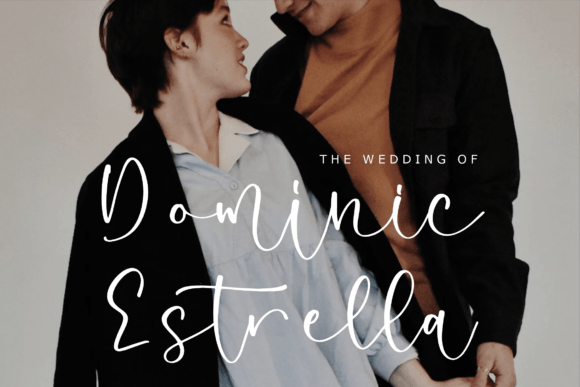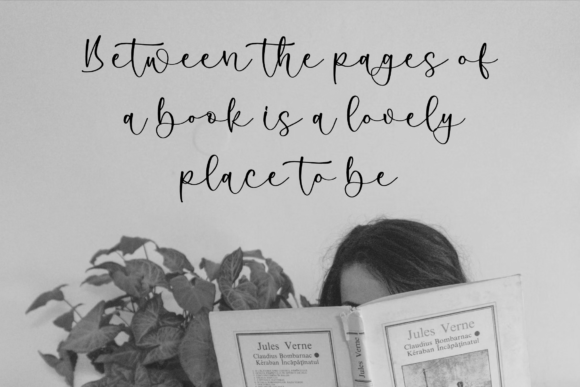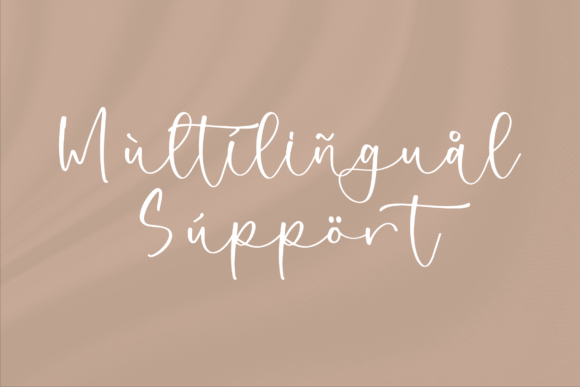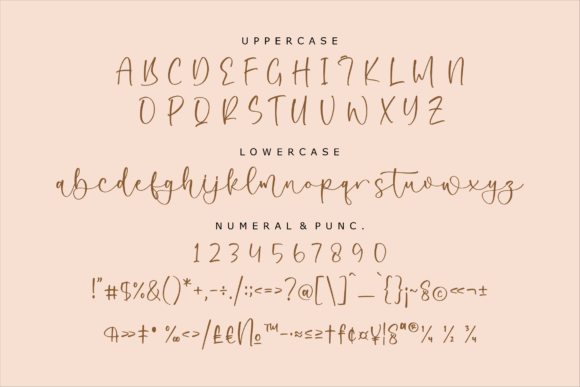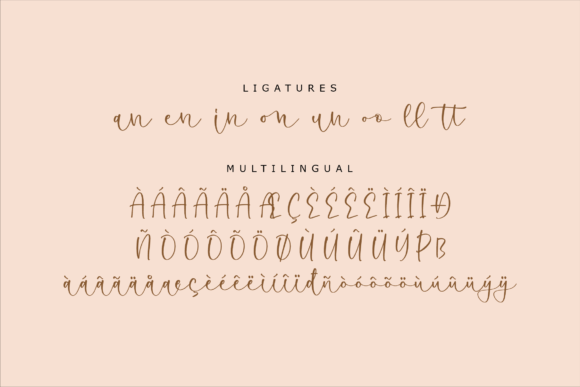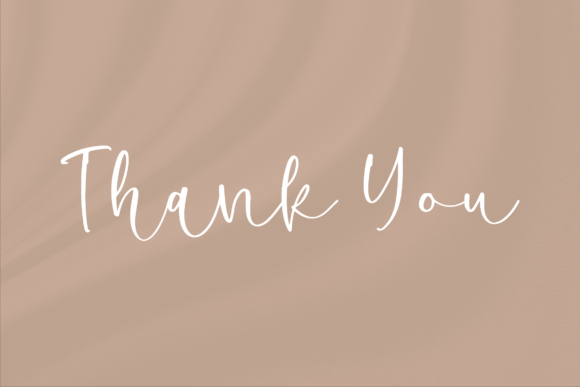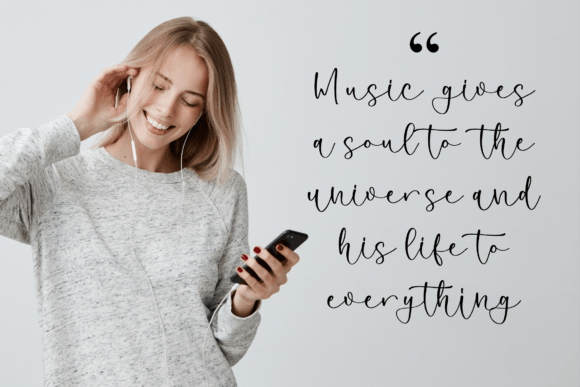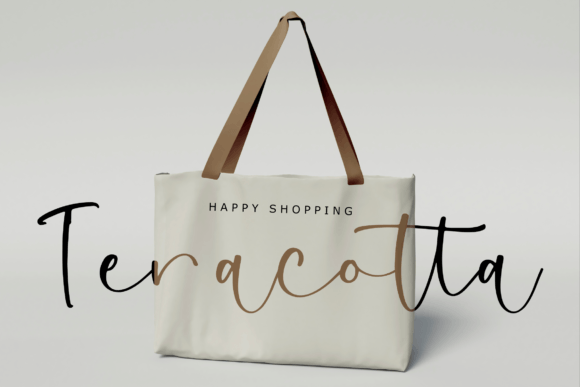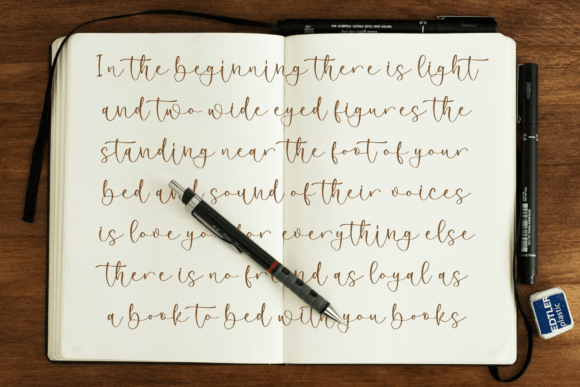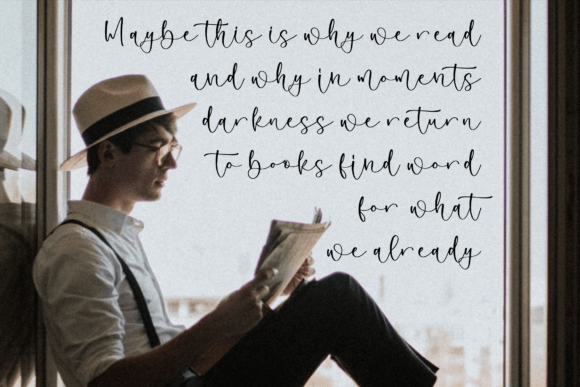
Manella Symone Font
Add Elegant Style with Manella Symone Font
The Manella Symone font is an elegant script designed to add a beautiful, sophisticated touch to your creative projects. Suitable for logos, branding projects, homeware designs, product packaging, mugs, quotes, posters, shopping bags, t-shirts, book covers, name cards, invitation cards, greeting cards, labels, photography watermarks, special events, and many more, Manella Symone brings charm and style to every design.
Perfect for Diverse Creative Applications
The Manella Symone font shines in numerous design contexts including brand logos, personalized stationery, packaging design, merchandise, editorial layouts, and digital media. Its flowing strokes and refined style create a polished and memorable visual impact.
A Script Font with Grace and Readability
Each character in the Manella Symone font is crafted with smooth, elegant strokes that balance decorative beauty with excellent readability. This font is ideal for headlines, logos, quotes, and detailed text that requires both style and clarity.
Despite its decorative nature, the Manella Symonefont maintains excellent readability at various sizes. Whether used for large titles or smaller text elements, it balances elegance with clarity, making it a versatile choice for many projects.
Make Your Designs Shine with Elegant Script
Typography defines the personality of your design, and Manella Symone adds a luxurious and graceful spirit. If you want to elevate your projects with a beautiful handwritten script, download the Manella Symonefont today and create stunning, memorable visuals.